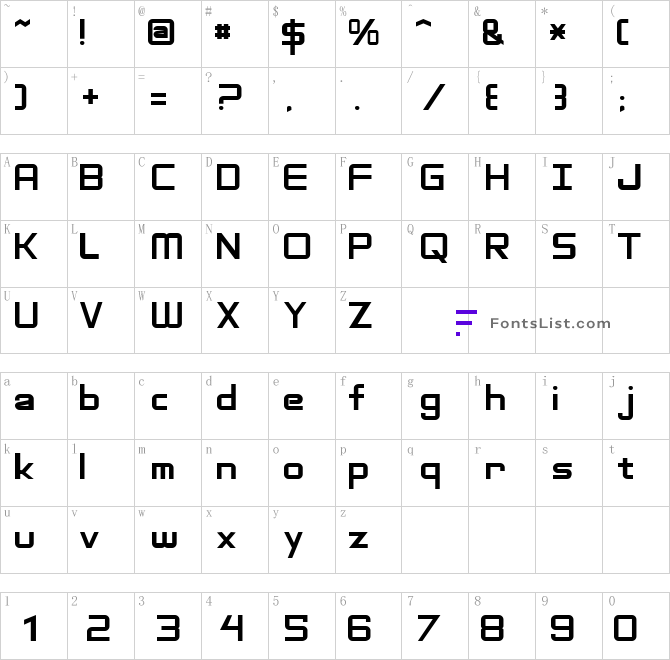
- Font Name:Adventure Subtitles
Adventure-Subtitles-Normal-copy-6-.ttf is a very beautiful artistic font, Adventure-Subtitles-Normal-copy-6-.ttf is widely used in the design and printing of various books and pictures,Adventure-Subtitles-Normal-copy-6-.ttf has a strong visual impact,Adventure-Subtitles-Normal-copy-6-.ttf is a commonly used font in newspapers, magazines and books, and is used in posters, e-commerce Poster design, store design, logo design, font design and other fields.Adventure-Subtitles-Normal-copy-6-.